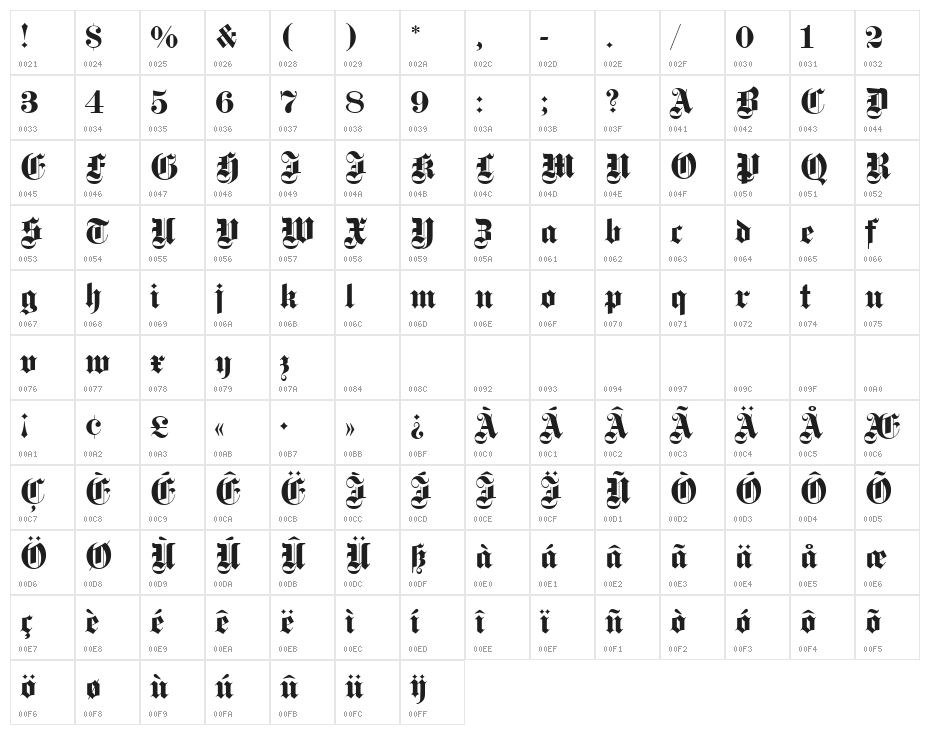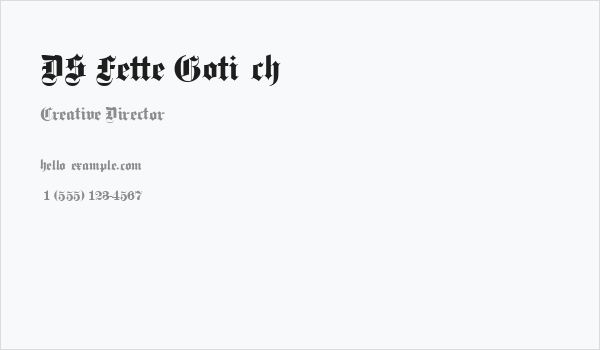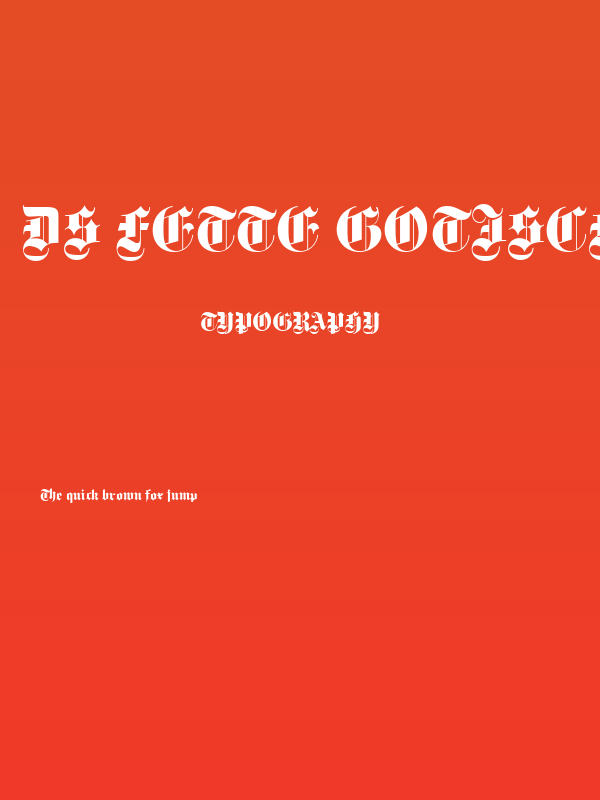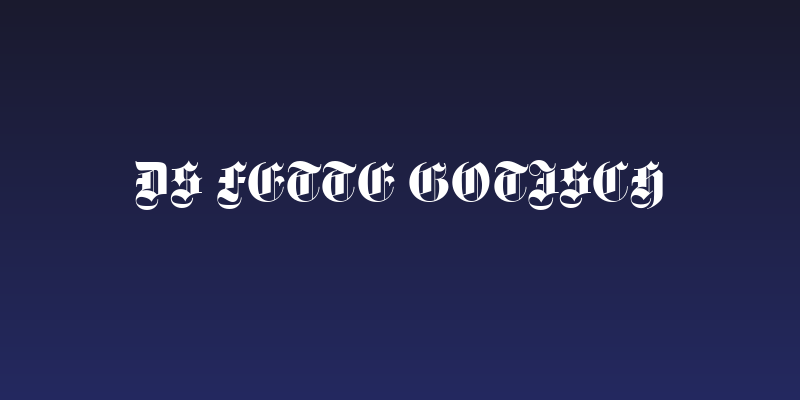
DS Fette Gotisch Font
DS Fette Gotisch Description
This font exudes a classic and historical aura, characterized by its intricate and ornate design. The letters are bold and heavily stylized, featuring sharp angles and elaborate flourishes that are reminiscent of traditional Gothic script. The uppercase letters are particularly striking, with their dramatic curves and pointed edges, while the lowercase letters maintain a consistent style that complements the uppercase. The numerals and special characters are equally ornate, adding to the overall cohesive look. This font is perfect for projects that require a touch of elegance and historical depth.
| Use Case | Headlines, Logos, Decorative text |
| Proposed Projects | Ideal for historical documents, certificates, wedding invitations, or any design requiring a classic and elegant touch. |